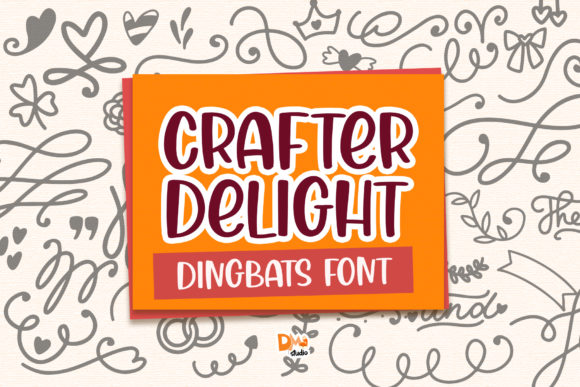
Looking for a font that can add a touch of cuteness to your creative projects? Look no further than Crafter Delight Font! This unique dingbats font, created by dmletter31, is a collection of 62 adorable and lovely doodles that are sure to capture your heart.
With Crafter Delight, you can easily take your design projects to the next level. Whether you're working on a greeting card, a scrapbook, or any other creative project, this font is a versatile tool that can add a fun and whimsical touch.
Crafter Delight is a must-have for any font library, with its playful and cheerful characters that can help express your emotions and thoughts in a fun way. You can use the font to add a touch of joy and lightheartedness to your projects, making them stand out and get noticed.
With a wide range of characters to choose from, you'll never run out of creative ideas when using Crafter Delight. From cute animals and flowers to fun icons and symbols, this font has everything you need to create eye-catching designs that will delight and captivate your audience.